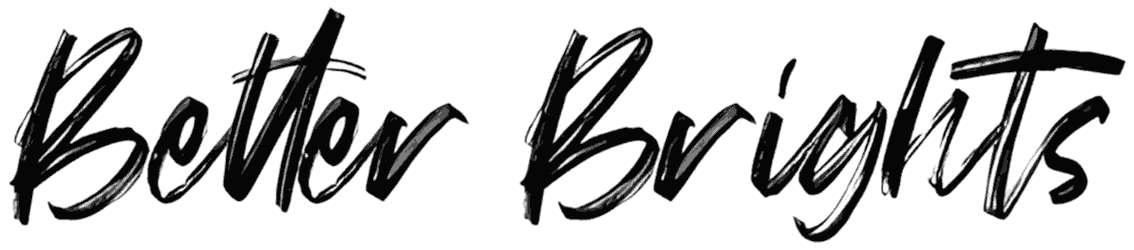
Better Brights Brush Font
If you believe giving high-quality content to the audience is the best way for attracting their attention, then it would be better to never overlook a magical script font such as Better Brights Brush and try this artwork on your posters, business cards, billboards, product packaging, or social media posts.
Considering the unbelievable ability of this brush font in sharing a sense of personalization, love, and drama, the lack of numbers will not turn into a serious problem.